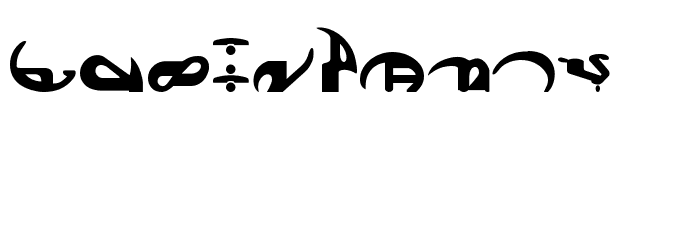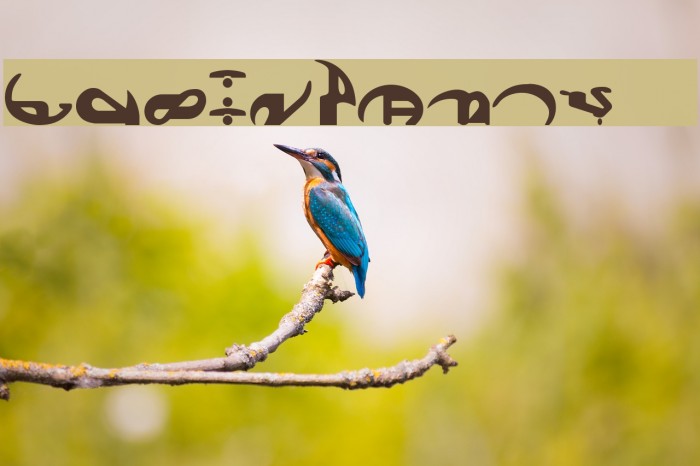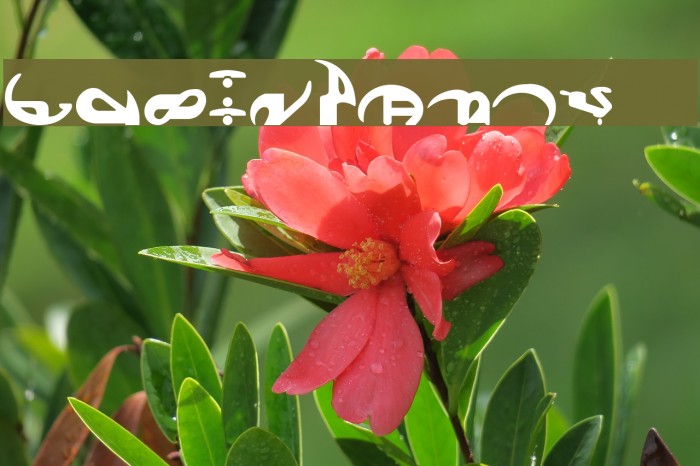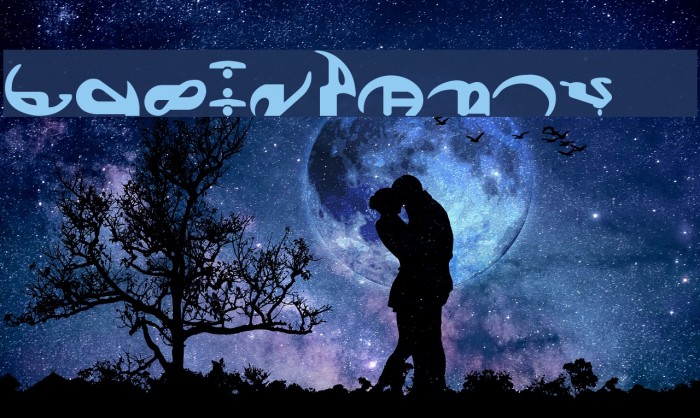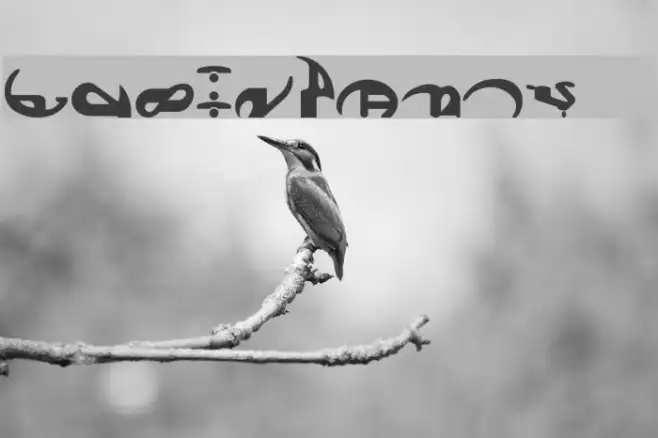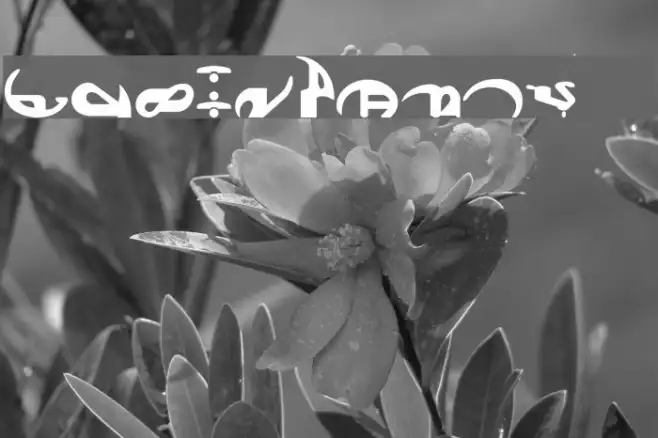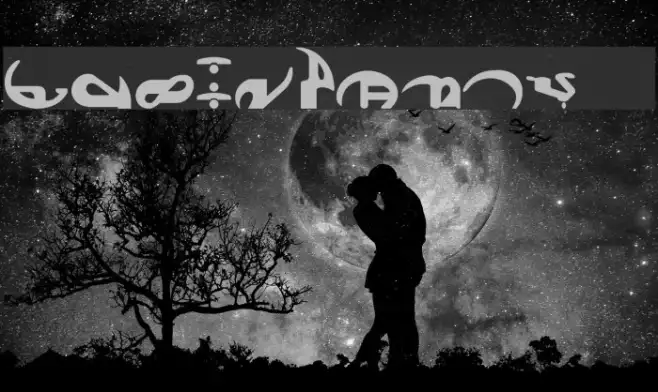
Boonta Font
This font features a highly stylized, alien-like script that evokes a sense of mystery and otherworldliness. The characters are composed of bold, geometric shapes with intricate detailing, including dots and lines that suggest a futuristic or ancient language. The overall appearance is symmetrical and balanced, with each letterform maintaining a consistent height and width. The design is unique and visually striking, making it ideal for creative projects that require a distinctive and unconventional typeface.
A bold, geometric font with an alien-like, mysterious style.
- Proposed Projects: Ideal for sci-fi themed designs, video game interfaces, movie posters, or any project needing a unique, extraterrestrial aesthetic.
- Overall Style: Futuristic, Alien
- Use Case: Logos, Posters, Titles